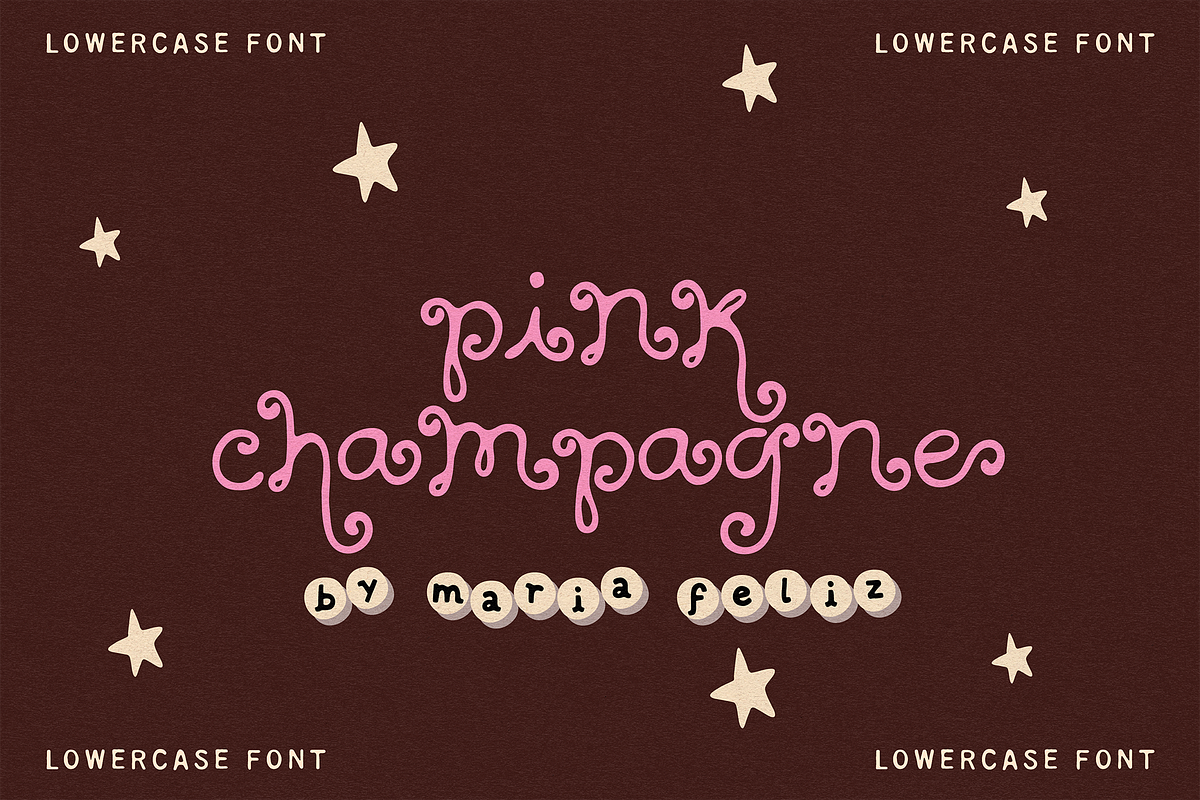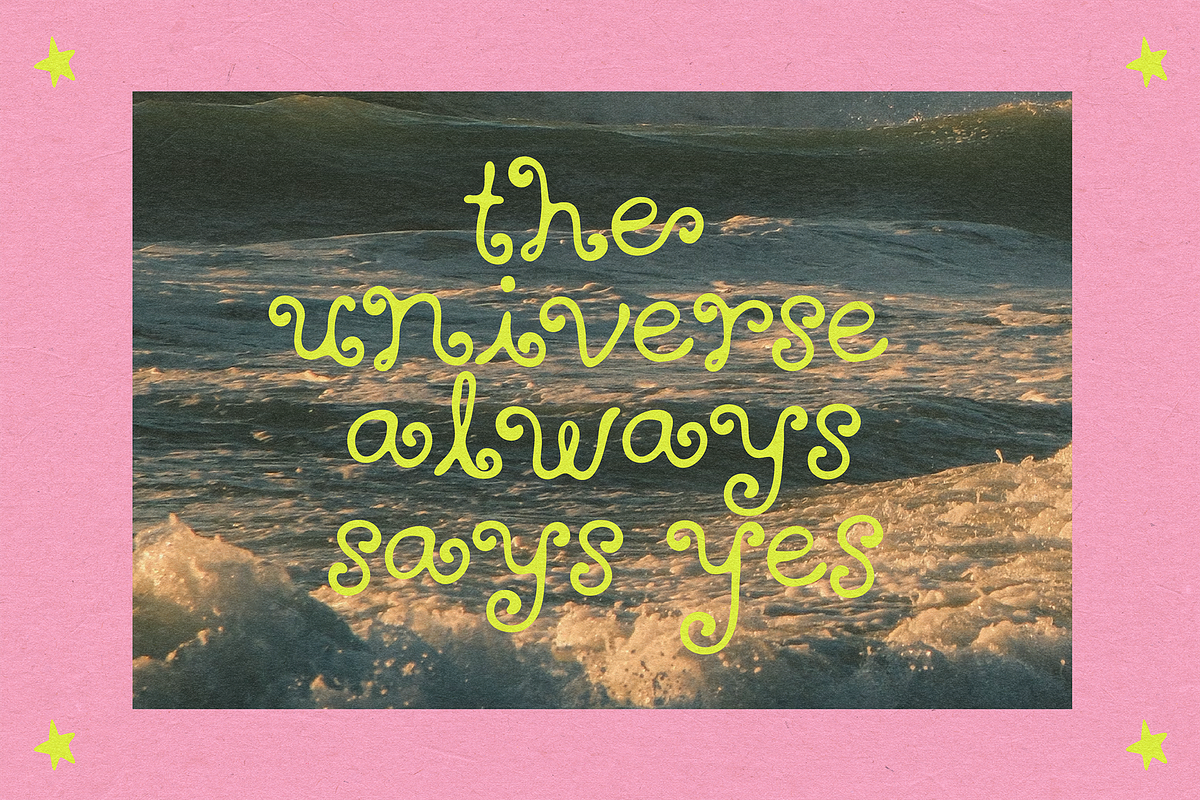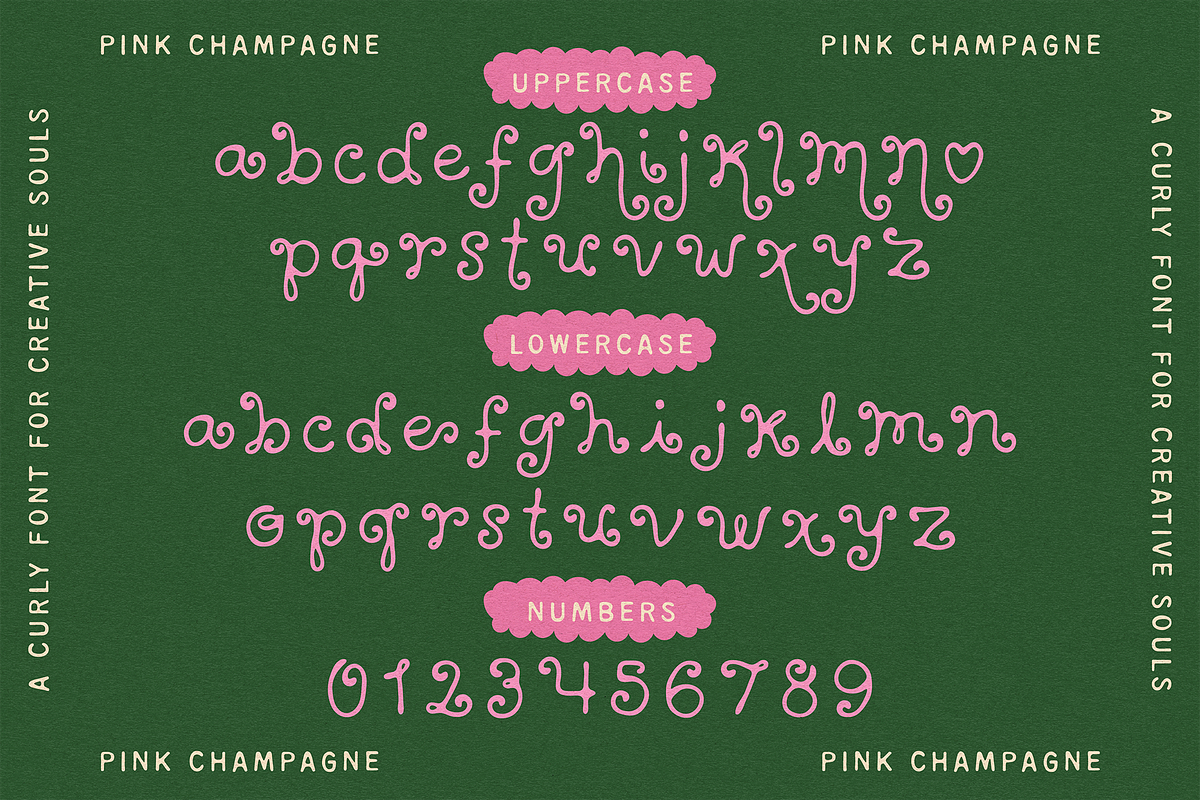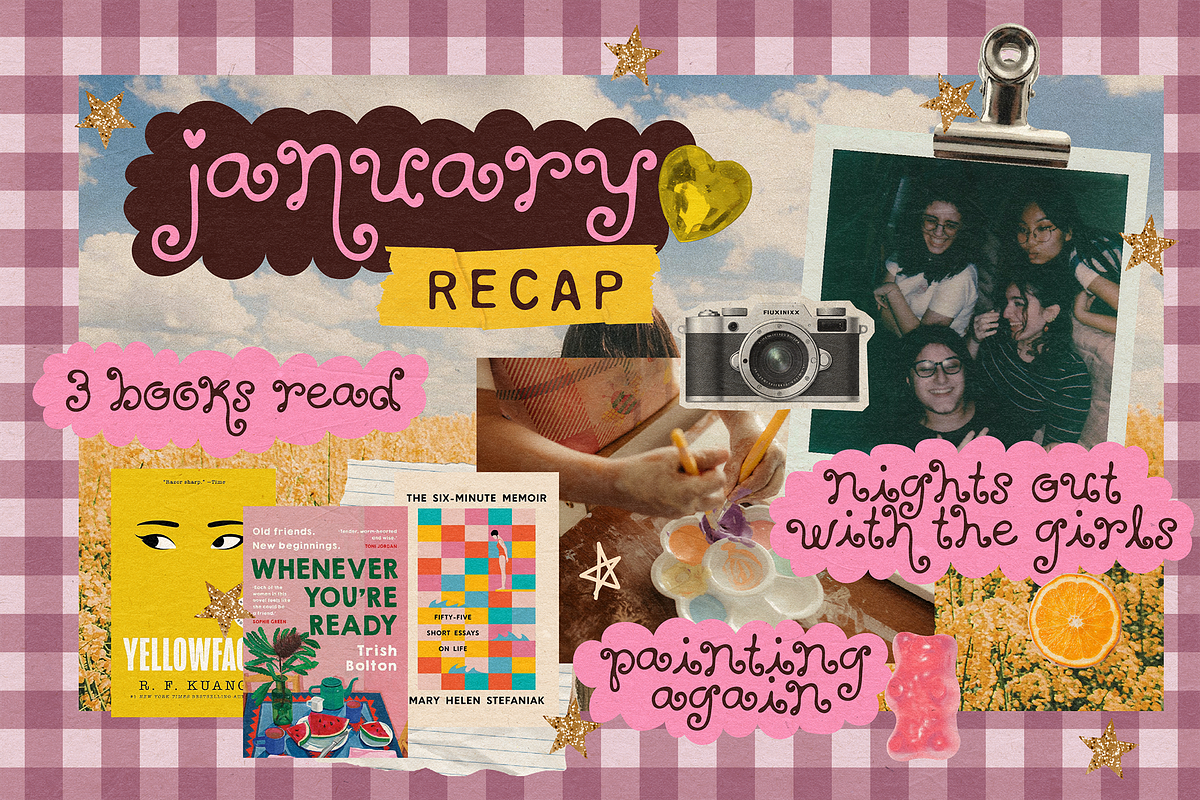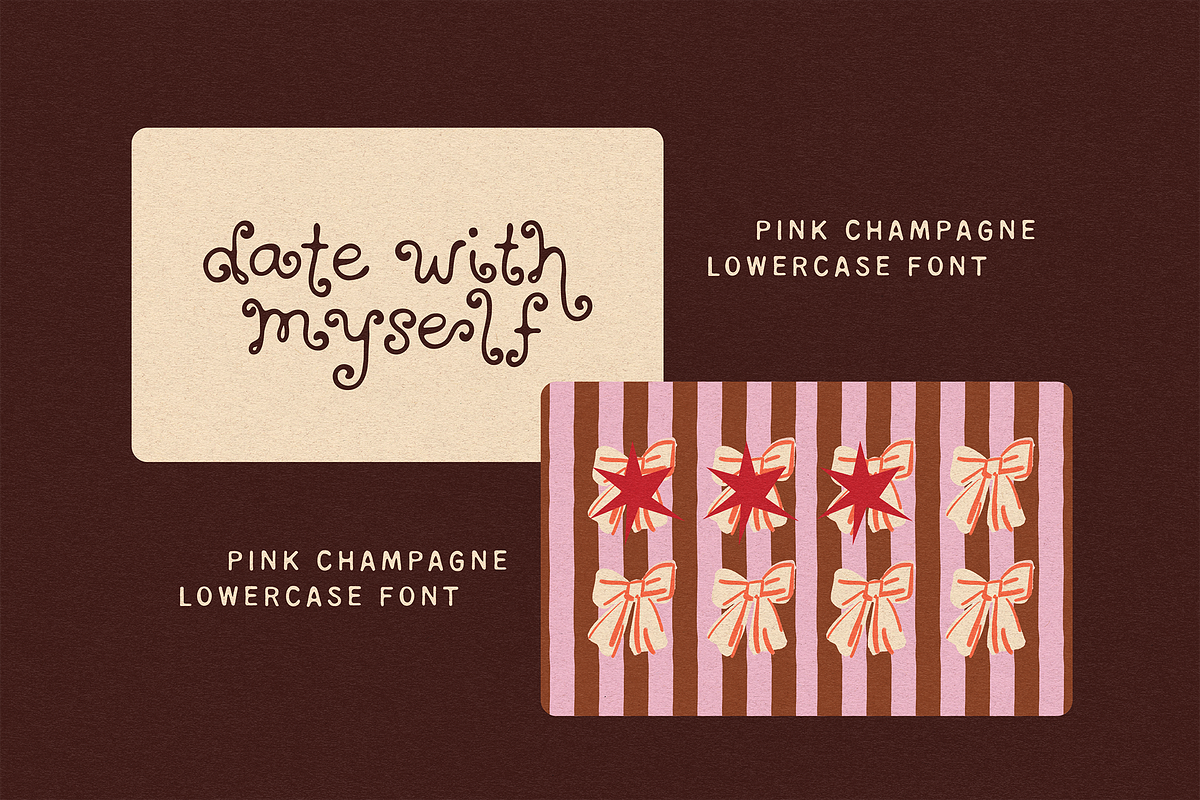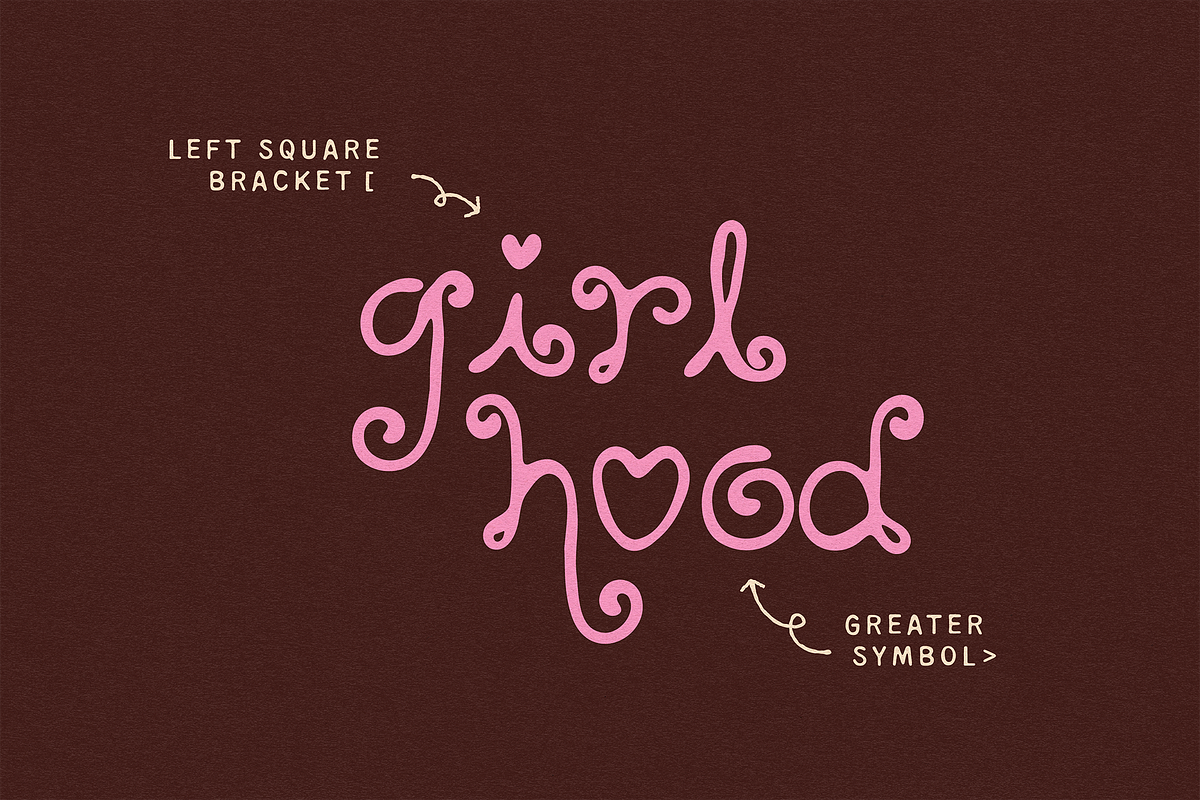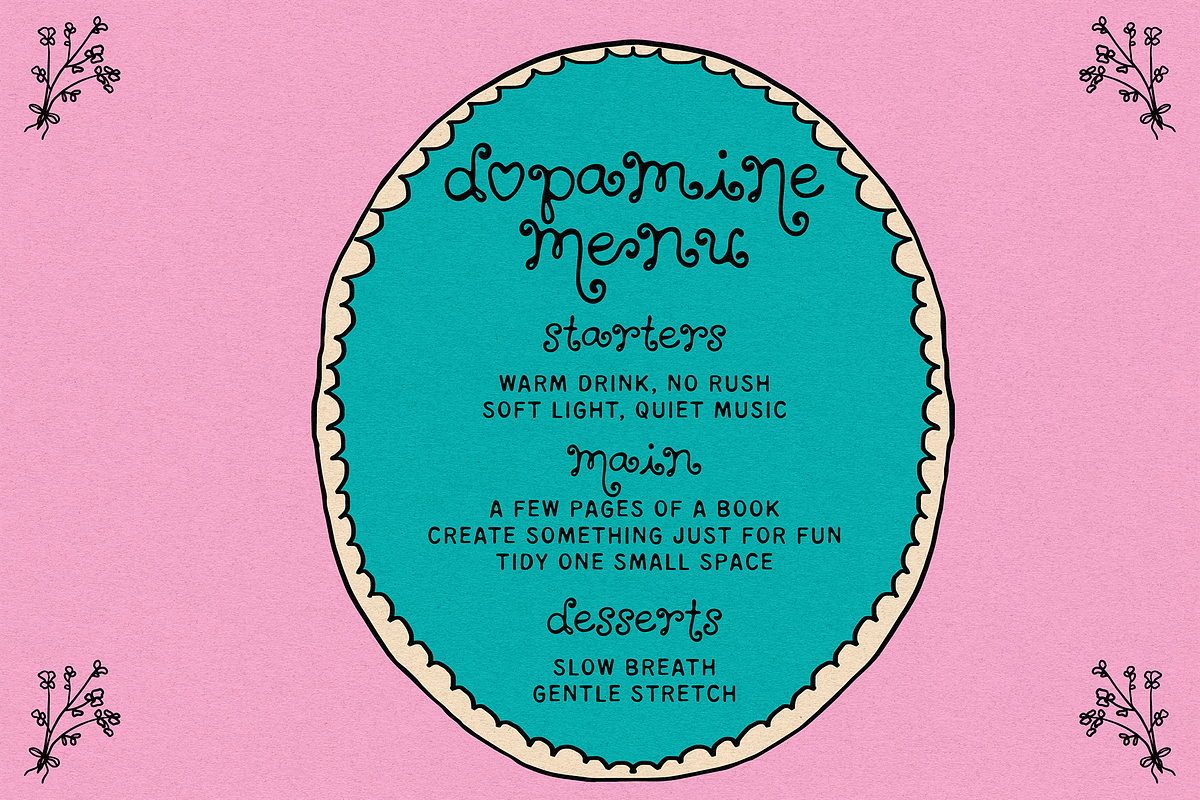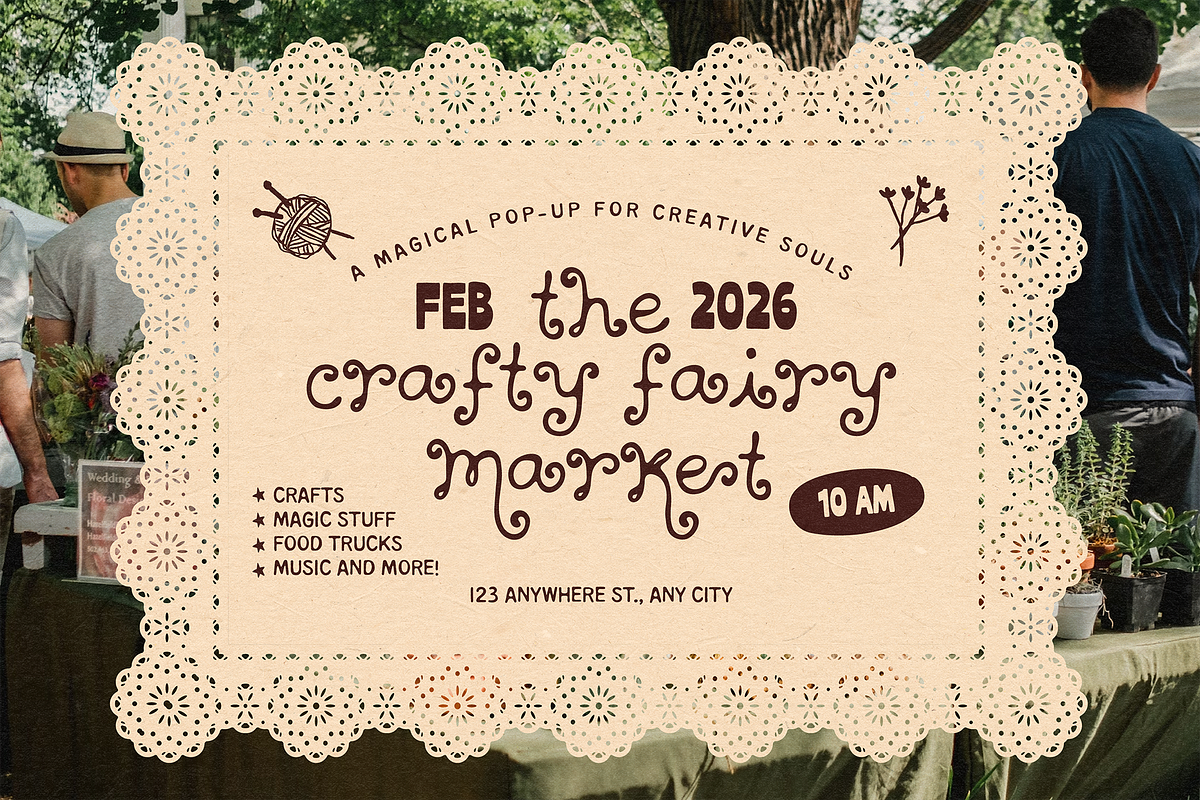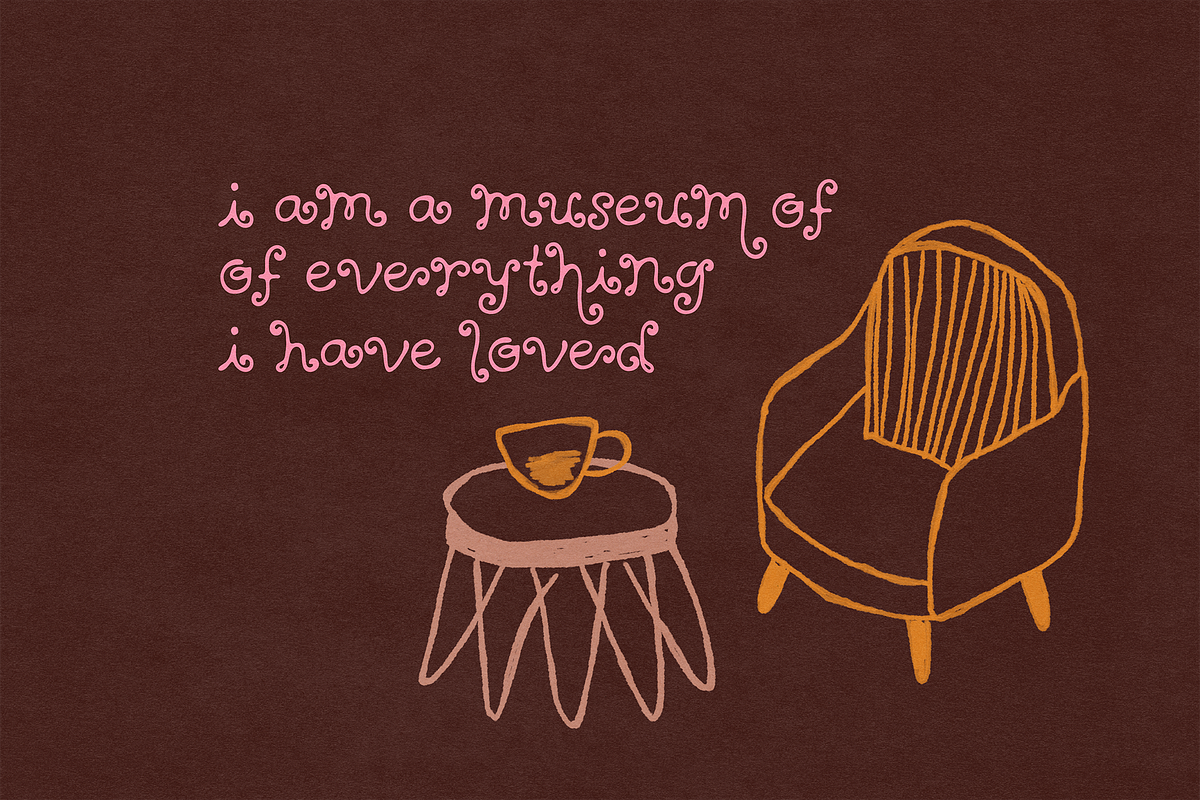
PINK CHAMPAGNE | CURLY SWIRLY FONT
PINK CHAMPAGNE is a playful, hand-drawn handwritten font with a super curly, girly and swirly personality. Imperfect, fun and effortlessly cool, this font was designed to add charm and character to your designs.
This is an informal, lowercase-only font, perfect for titles, quotes, greeting cards, social media posts, and creative projects of any theme.
You can mix uppercase and lowercase characters to create more dynamic and unique lettering styles, even though all glyphs are designed in a lowercase style
✷ One of PINK CHAMPAGNE’s sweetest details is its heart alternates 💕 The font includes 4 special characters (for i, I, j and J) featuring heart shapes. Simply type the corresponding symbols and the hearts will appear automatically, giving your designs an extra cute and tender touch.
- Left curly bracket { – heart uppercase “I”
- Right curly bracket } – heart uppercase “J”
- Greater symbol > – heart lowercase “i”
- Less symbol < – heart lowercase “j”
- Left square bracket [ – Alternate “O”
- Right square curly bracket ] – Alternate “L”
- Logical not ¬ – Star
- Back slash \ – Shine